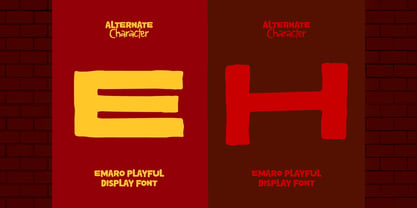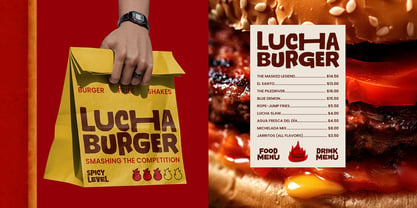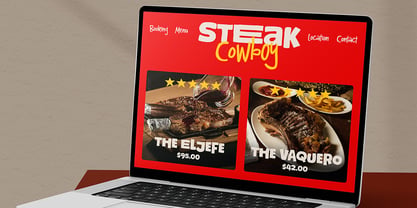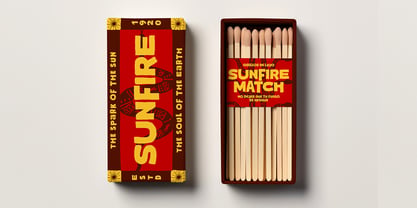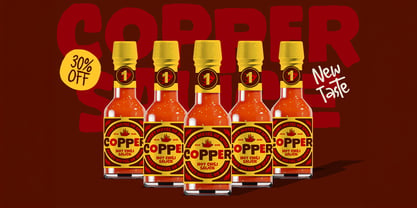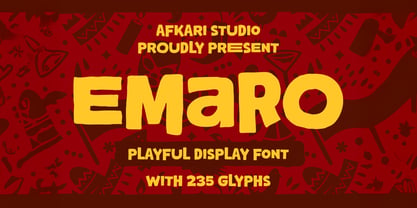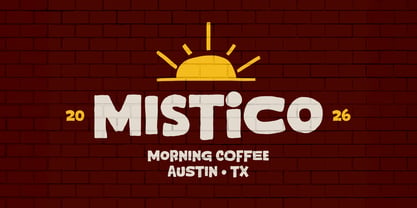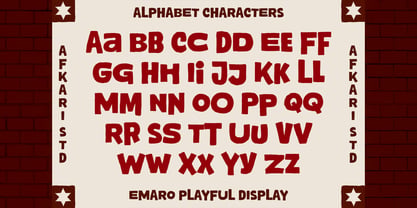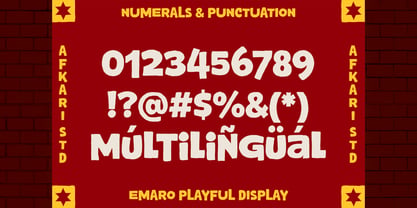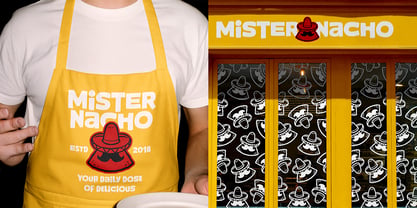
Emaro
von Afkari Studio
Die Schriftfamilie Emaro wurde von Musthafa Kamal Emje entworfen und von Afkari Studio veröffentlicht. Emaro enthält 1 Stile. Mehr über diese Familie
Emaro is a playful display font designed to bring fun, energy, and personality into your designs. With its bold shapes and cheerful character, Emaro instantly creates a friendly and eye-catching look, making it perfect for creative projects that need a lively visual voice. This font combines modern styling with playful letterforms, making it versatile for both kids-oriented and contemporary branding projects. Emaro keeps designs approachable and engaging while maintaining strong readability for headlines and display use. Perfect for kids branding and products, posters and playful headlines, packaging and merchandise, social media graphics, logo and branding projects, as well as stickers, toys, and various creative products that need a fun, friendly, and eye-catching visual style. Ideal for designers who want typography that feels fun, bold, and full of charm, Emaro adds a joyful touch to both digital and print designs. Highlighted Features: - Alternates & ligatures included - Clean, modern letterforms - Uppercase & lowercase letters - Numbers & punctuation - Fully accessible without additional design software. - Mültîlíñgúãl Sùppört for; ä ö ü Ä Ö Ü ß ¿ ¡ Add cheerful personality and bold fun to your designs with Emaro – Playful Display Font, a modern typeface made to stand out in creative projects.
Designer: Musthafa Kamal Emje
Foundry: Afkari Studio